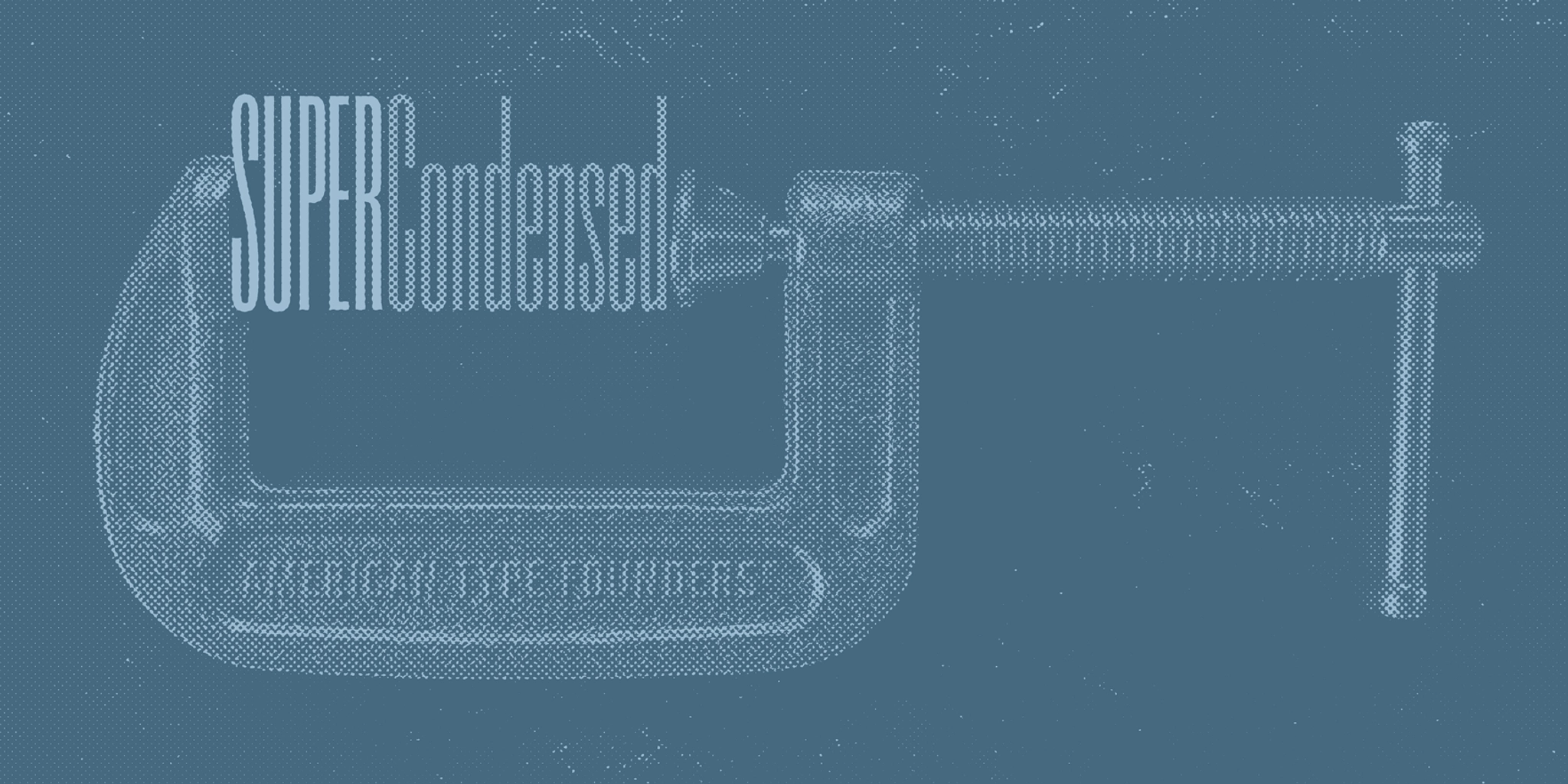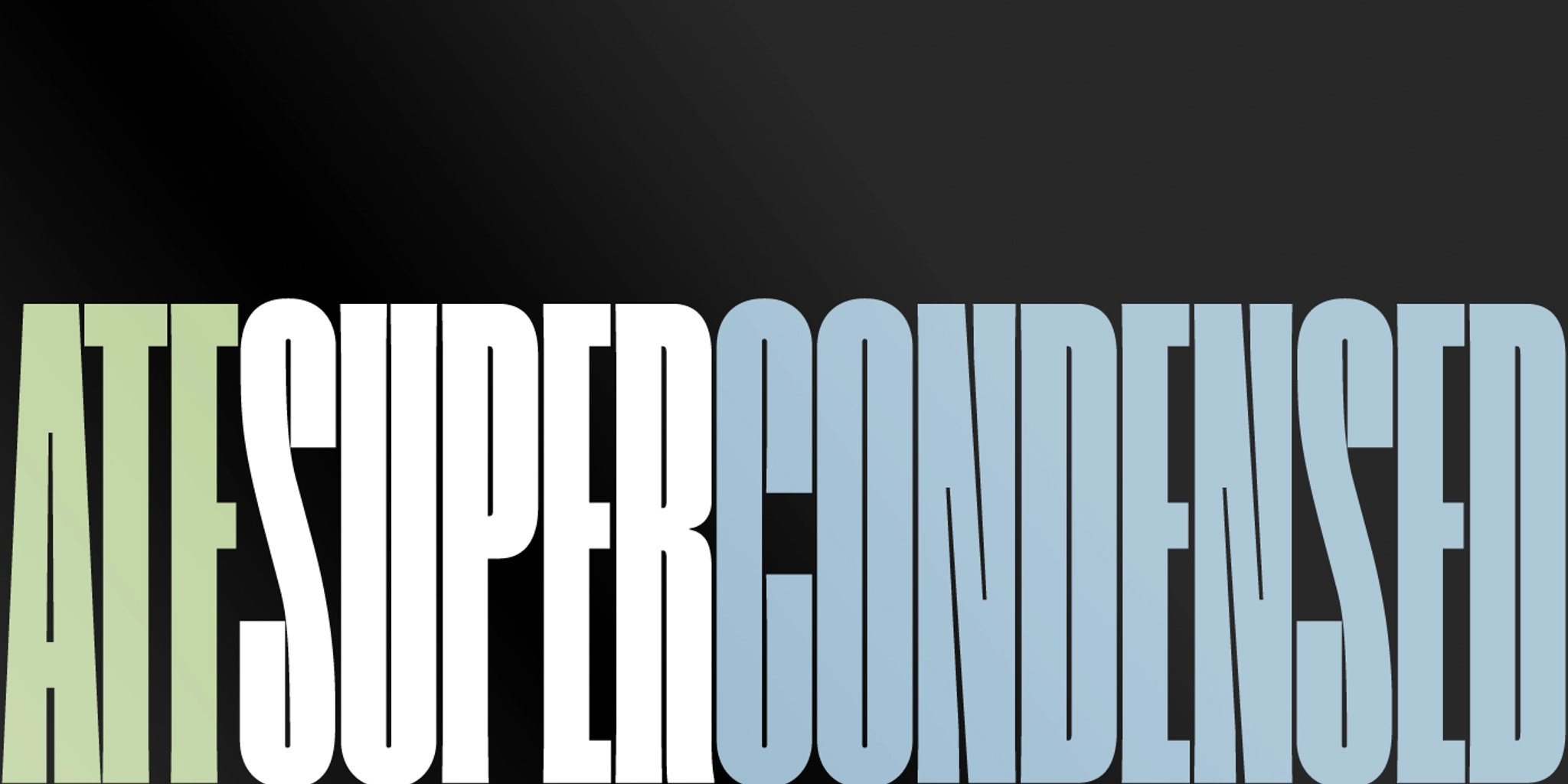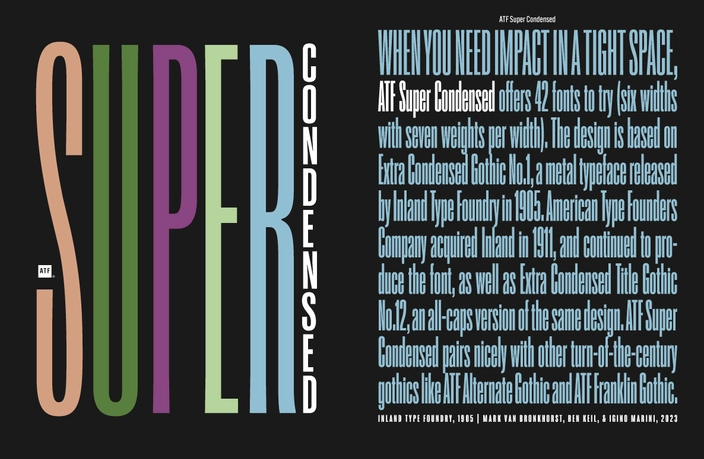
Super Condensed Font Family
Designed by Mark Van Bronkhorst, Ben Kiel, and Igino Marini.
The American Type Founders collection was developed by Mark van Bronkhorst.
ATF Super Condensed is a headline-making font family for when you need impact in a tight space. Six widths with seven weights per width — 42 total styles.
When you need impact in a tight space, ATF Super Condensed offers 42 fonts to try — six widths with seven weights per width. The design is based on Extra Condensed Gothic No. 1, a metal typeface released by Inland Type Foundry in 1905. American Type Founders Company acquired Inland in 1911, and continued to produce the font, as well as Extra Condensed Title Gothic No. 12, an all-caps version of the same design. This headline-making font family is ideal for magazines, book covers, posters, and campaigns.